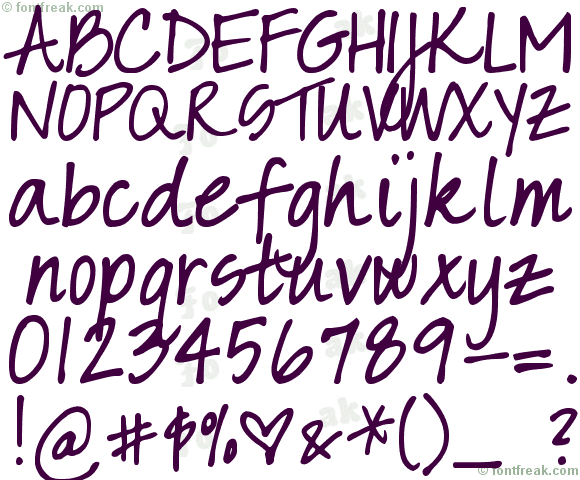
DJB Sarah prints
About DJB Sarah prints
DJB Sarah prints is a charming handwritten typeface designed by Darcy Baldwin, categorized as a script font. This font exudes a casual yet sophisticated vibe, perfect for adding a personal touch to your projects. The visual characteristics include a playful stroke weight that varies throughout the letters, creating a sense of rhythm and flow. The characters are well-spaced, providing clarity while maintaining an informal aesthetic. Decorative elements are subtly integrated, offering unique flourishes that enhance its handwritten charm without overwhelming the text.
This font is incredibly versatile and can be effectively used in various design contexts. For wedding invitations, DJB Sarah prints adds an elegant and personalized flair, making the event feel even more special. It is also ideal for greeting cards, where its friendly nature can convey warmth and affection. Restaurant menus can benefit from the font's inviting style, helping to create a welcoming atmosphere. Additionally, it serves well in branding for small businesses, particularly those in the handmade or artisanal sectors, where a personal touch is key. Content creators will find it perfect for social media graphics, blog headers, or any project that requires a friendly and approachable aesthetic.
Targeting graphic designers, small business owners, and content creators, this font appeals to those looking to infuse their work with personality and charm. Its freeware license makes it accessible for anyone seeking to enhance their design toolkit without financial constraints. In conclusion, DJB Sarah prints stands out due to its unique blend of elegance and informality, making it a go-to choice for a variety of creative projects. Don’t miss out on the opportunity to elevate your designs with the DJB Sarah prints font free download.